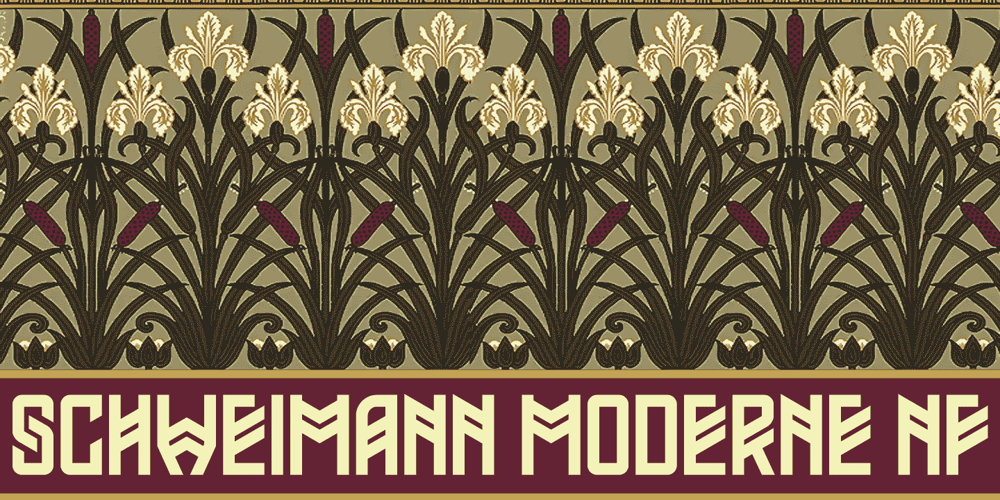
Schweimann Moderne NF
Schweimann Moderne NF font
Schweimann Moderne NF Font Family was designed by published by Nick’s Fonts. Schweimann Moderne NF contains 1 styles and family package options. Here’s a typeface from the Art Nouveau era that is equally at home in the world of contemporary science fiction, which is quite an achievement. Both versions of this font support the Latin 1262, Central European 1250, Turkish 1254 and Baltic 1257 codepages.